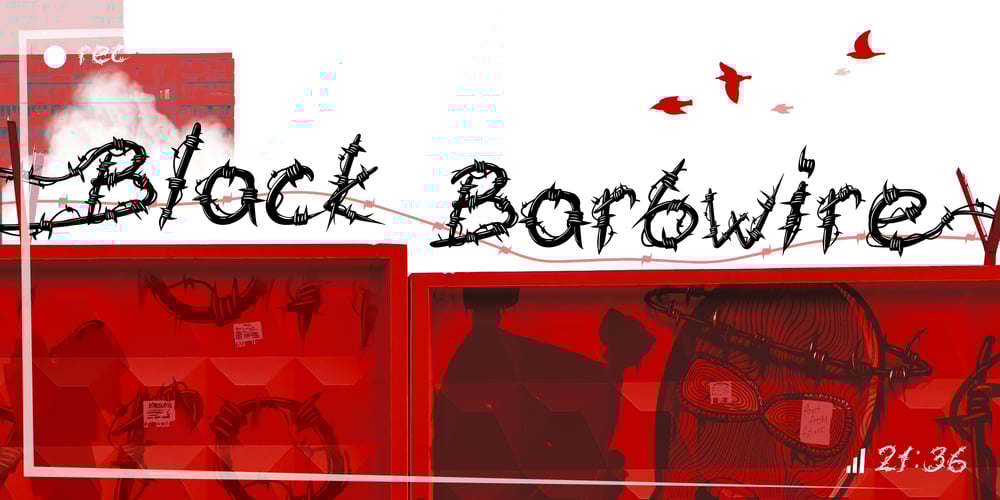
Black Barbwire Font Family was designed by Maxim Plekhov and published by Maxim Plekhov. Black Barbwire contains 1 styles and family package options. The Black Barbwire font is memorable and extraordinary. Was created for bold and aggressive headlines.Black Barbwire is perfect for design of a music cover, horror movie, detective, flyer, posteror a magazine.It combines characteristics such as aggression, mysticism, as well as fresh youthful maximalism and audacity.Using the Black Barbwire font, you will get the effect of mystery, horror and fear.Black Barbwire is designed to shape your individual style.Black Barbwire contains 223 characters including Cyrillic.